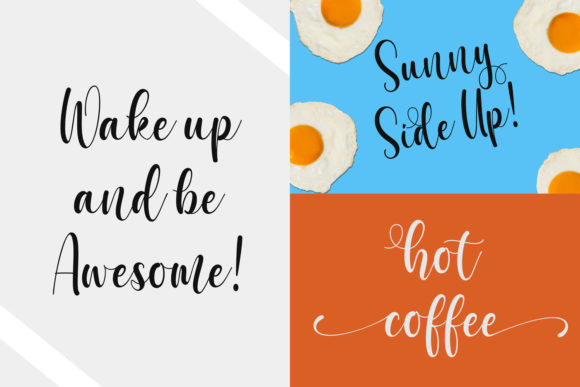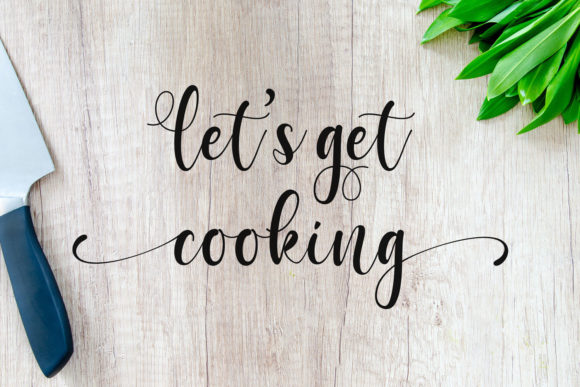
Sunkist Splash Font
db-ku.com - Script & Handwritten -- Sunkist Splash is an elegant script font with a contemporary atmosphere and impeccable form. Balanced and varied, this font was designed to enhance the beauty of your projects.